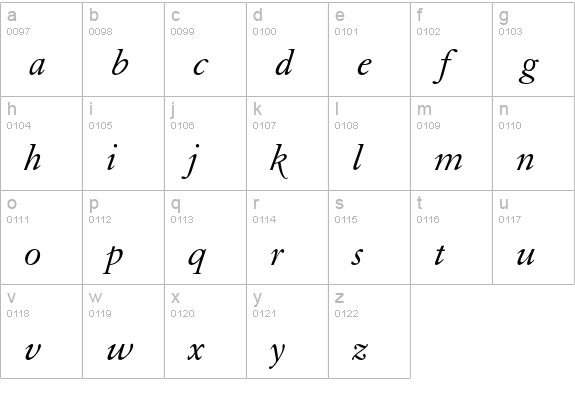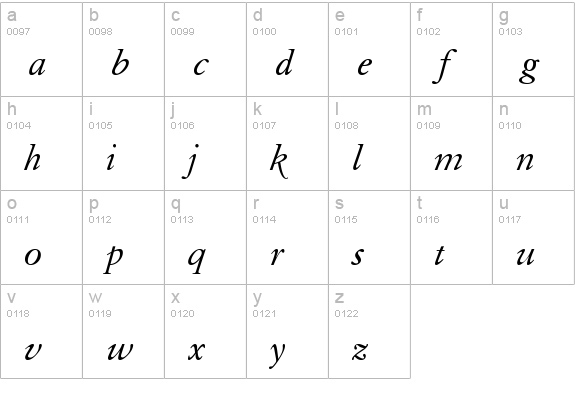
Elegant Garamond Italic Font Details
Elegant Garamond Italic is a distinctive, italic variant in the Elegant typeface family \xE2\x80\x94 well suited to design and typography projects.
Elegant Garamond Italic font exudes sophistication and grace with its delicate and flowing letterforms. This timeless typeface is perfect for adding a touch of elegance to any design project, whether it be for invitations, branding, or editorial pieces. The slanted and cursive nature of the italic style adds a sense of movement and fluidity, making it a versatile choice for conveying a sense of refinement and style. Best of all, Elegant Garamond Italic font is available for free download at FontsMarket.com. This means you can easily access this exquisite typeface and elevate your designs without any cost. Don't miss out on the opportunity to enhance your creations with this beautiful and freely available font. Download Elegant Garamond Italic today and bring a touch of sophistication to your next project.